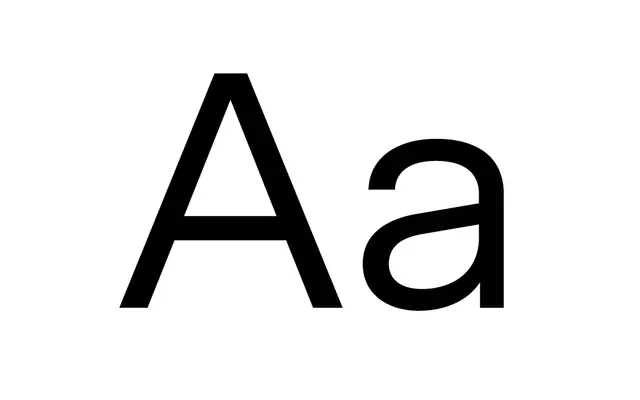
Scto Grotesk A
Scto Grotesk A specimen from Schick Toikka
Scto Grotesk's wider flavour: a confident neo-grotesque in six weights with italics, drawn for the rational, least-quirky version of the genre.
Scto Grotesk A is the wider of the family's two flavours. The foundry describe it as 'beaming with confidence', with strokes cut horizontally or vertically across all weights, a straight-legged R, square dots and matched ascenders and cap heights. Six weights from Thin to Black with matching italics, italics that slope only as much as needed for inline emphasis, an extended Latin character set and useful extras such as circled numbers make it a versatile workhorse for identity, editorial and UI work. Pair with Scto Grotesk B for a more economical set width.
The wider flavour of Scto Grotesk; the foundry describe it as 'beaming with confidence'.